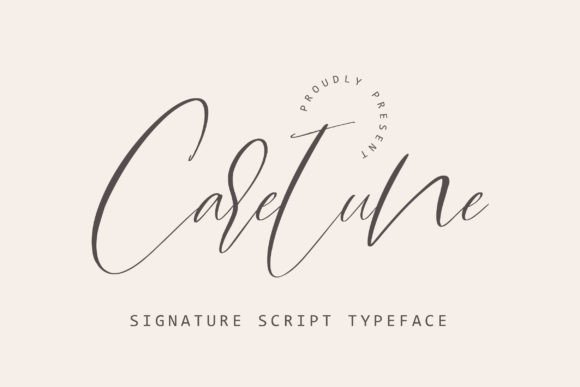
Are you looking for the perfect font to elevate your brand's style? Look no further than Caretune Font! As the best font for typography logo, this script font is created by the renowned Bellinghamtype and is perfect for fashion branding, editorial layouts, and other trendy designs.
With its fashionable and exquisite design, Caretune Font is guaranteed to catch your eye. Its bold, sweeping curves and modern, edgy attitude convey a sense of confidence and style that is sure to impress your audience. Not only is it visually stunning, but it is also PUA encoded, which means you can access all glyphs and swashes effortlessly.
Impress your customers and make a statement with Caretune Font. It's perfect for fashion logos, packaging, social media graphics, and more. Whether you're designing for a trendy boutique or a high-end fashion brand, this font is the perfect choice to make your brand stand out.
Caretune Font is more than just a font. It's a statement. A bold and stylish way to express your brand's personality and captivate your audience. It's the perfect addition to any designer's toolbox and is guaranteed to take your designs to the next level.